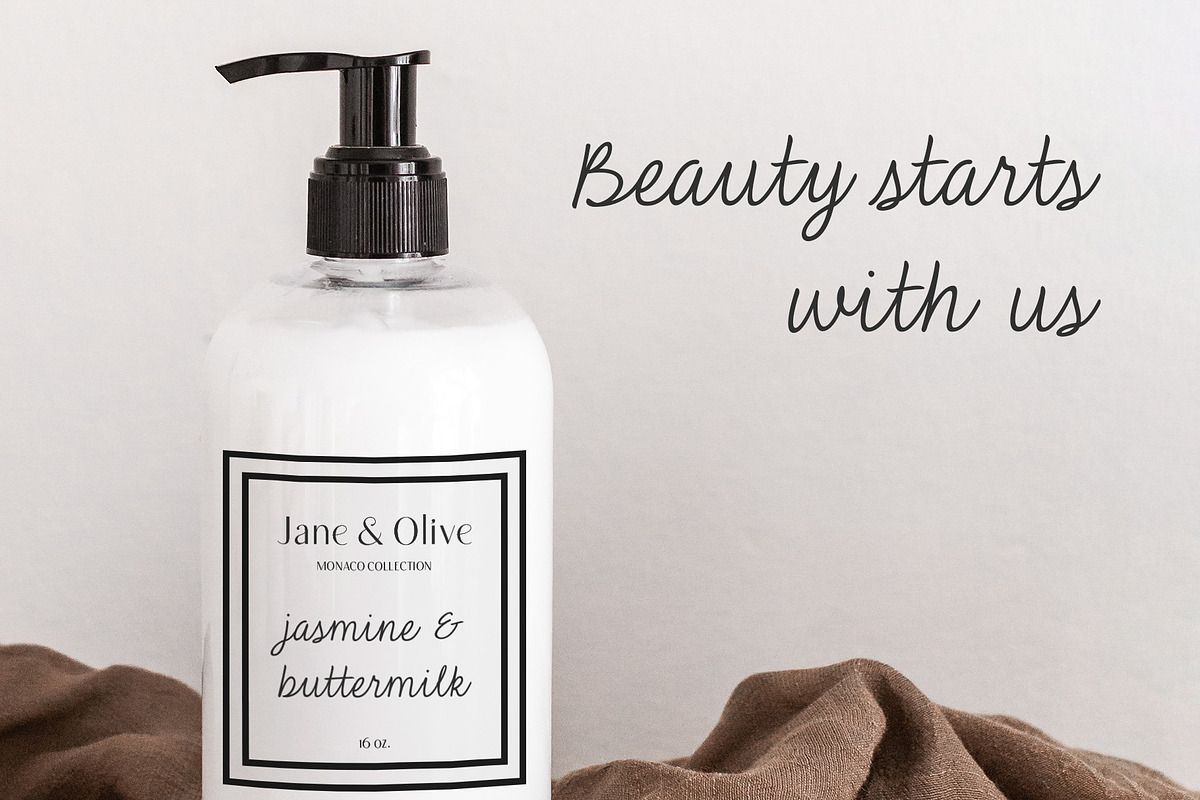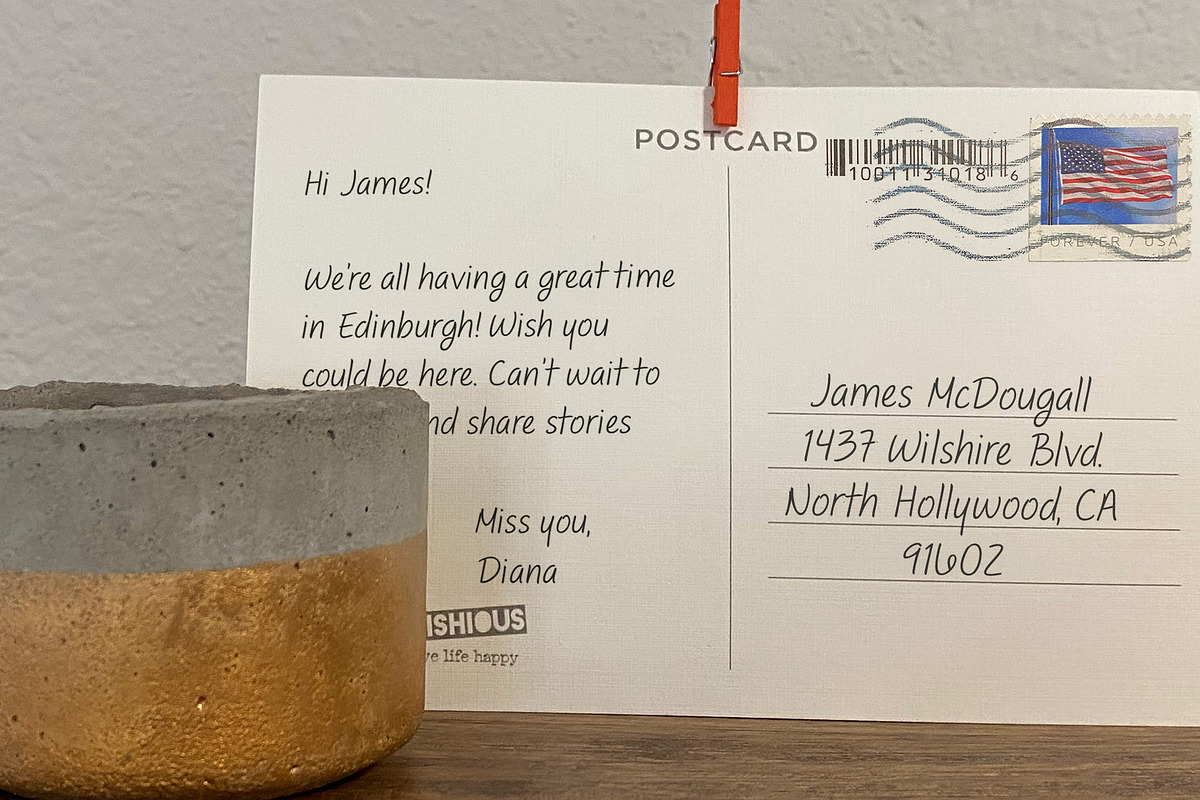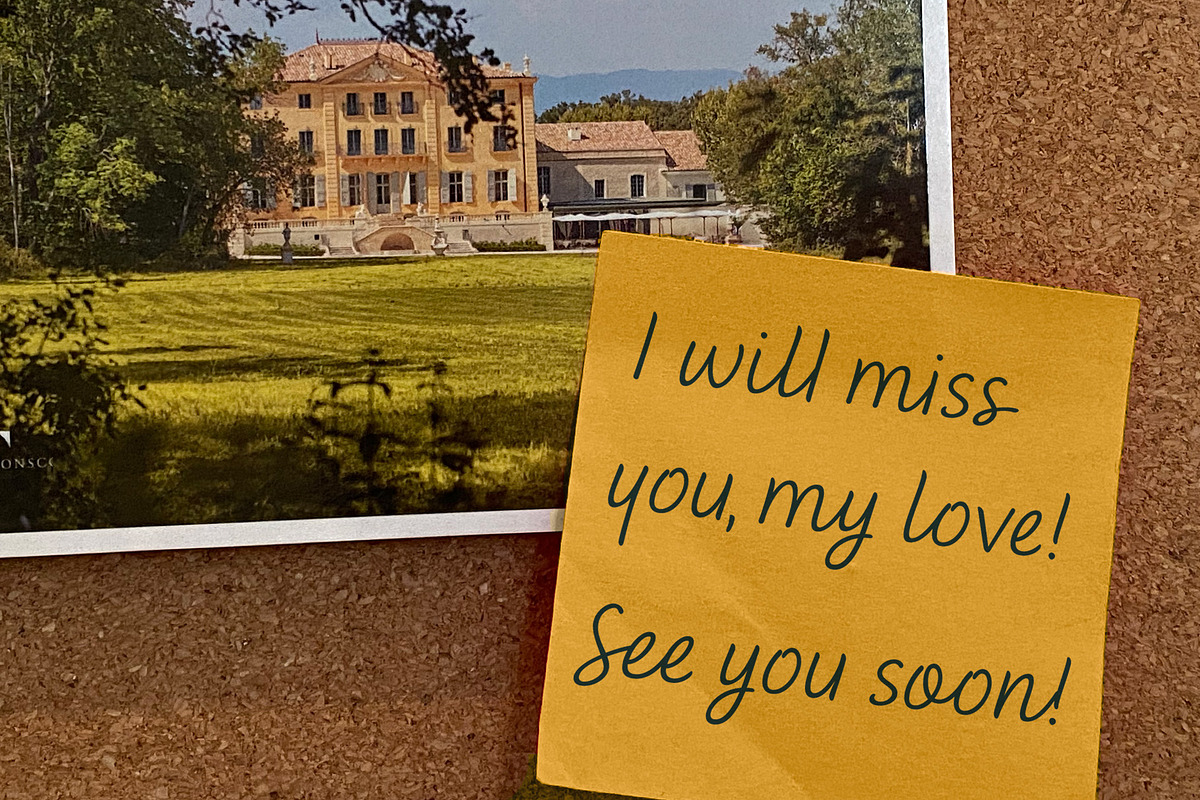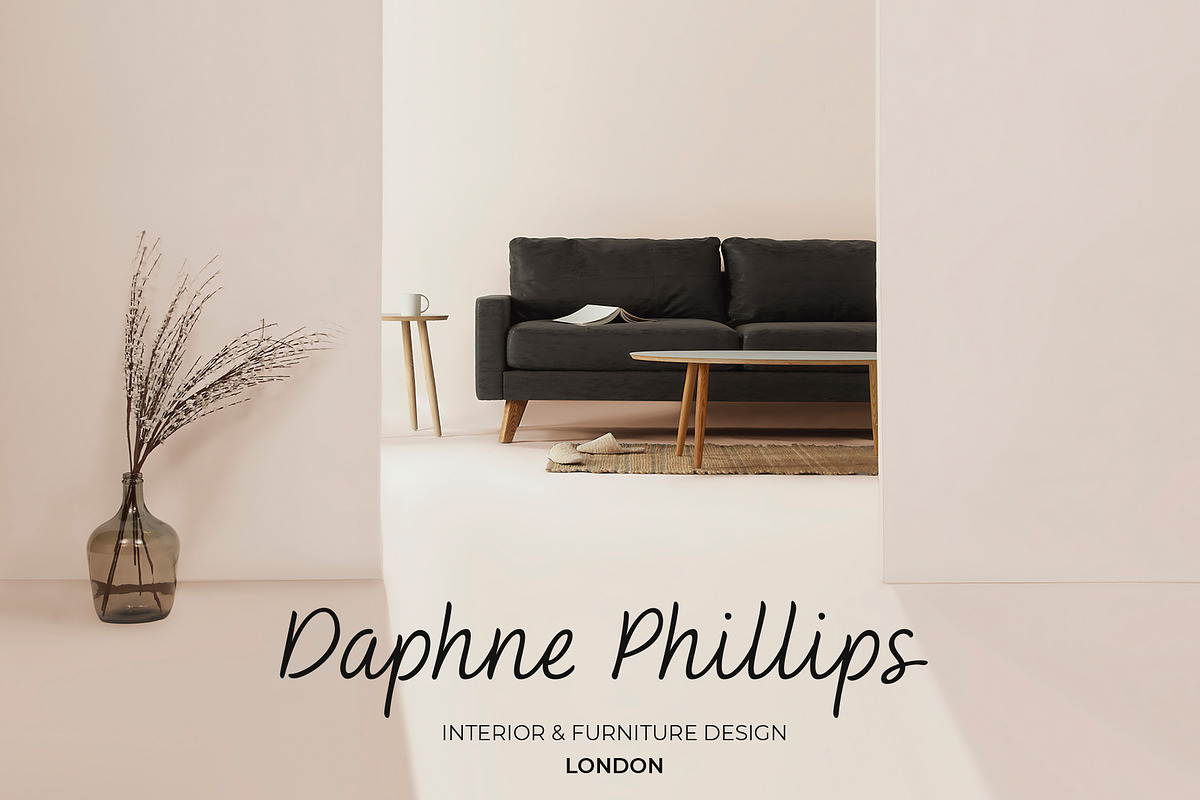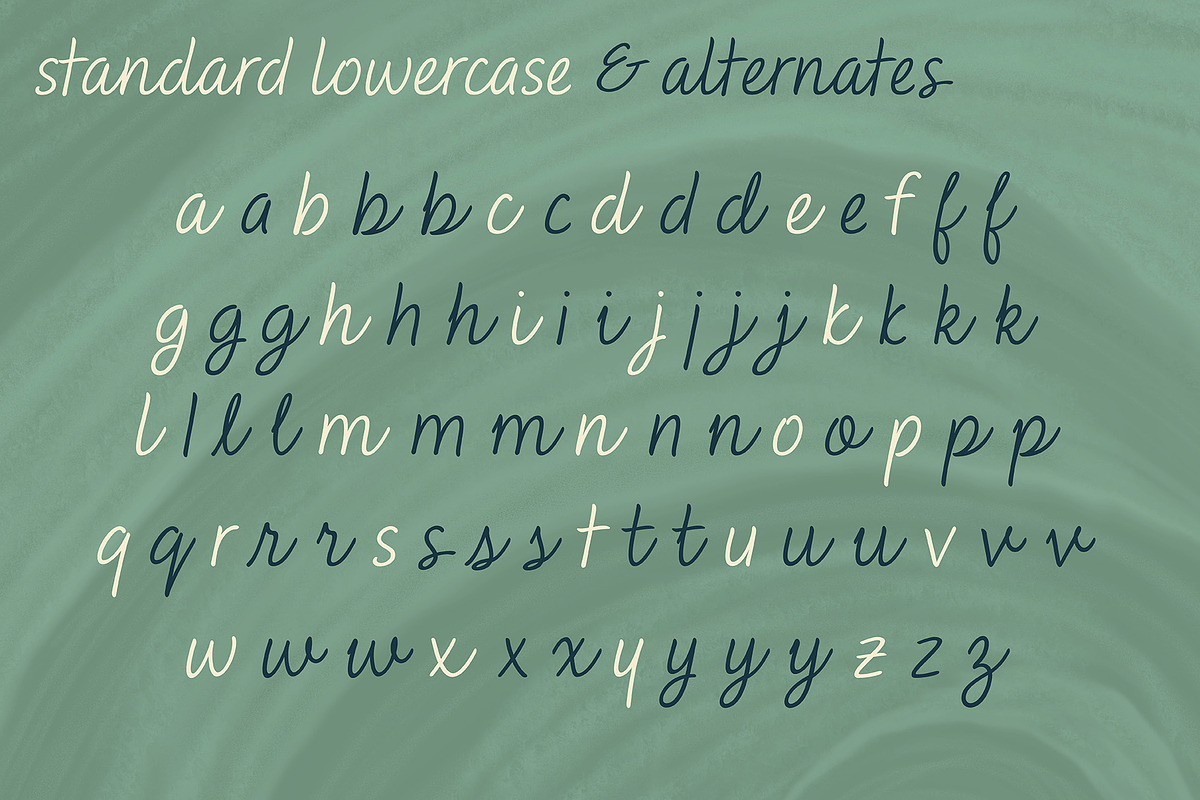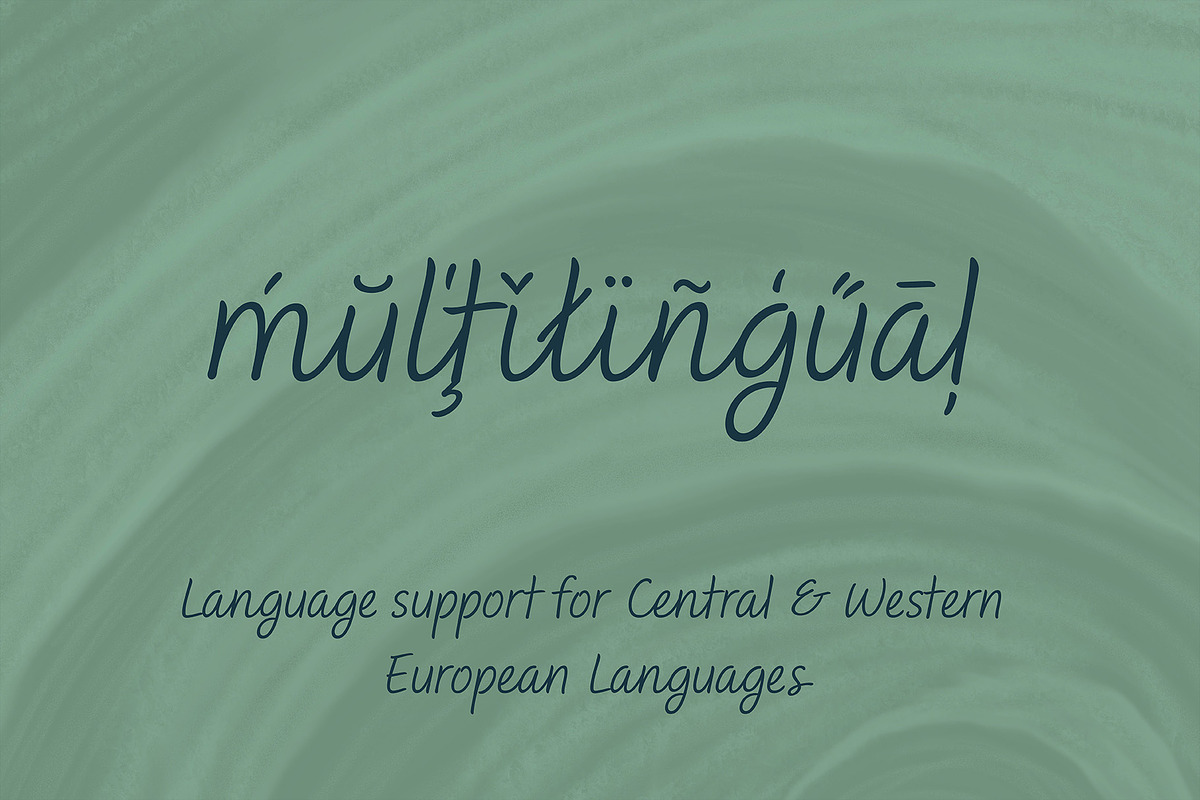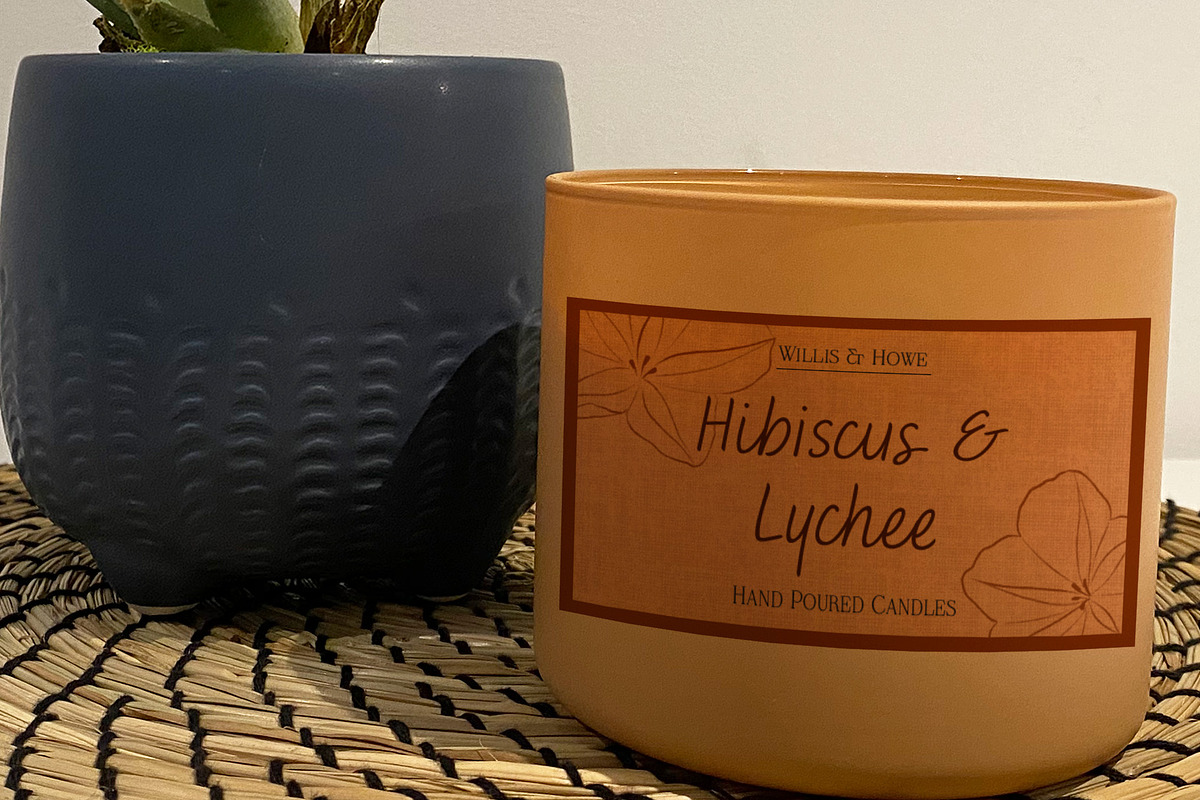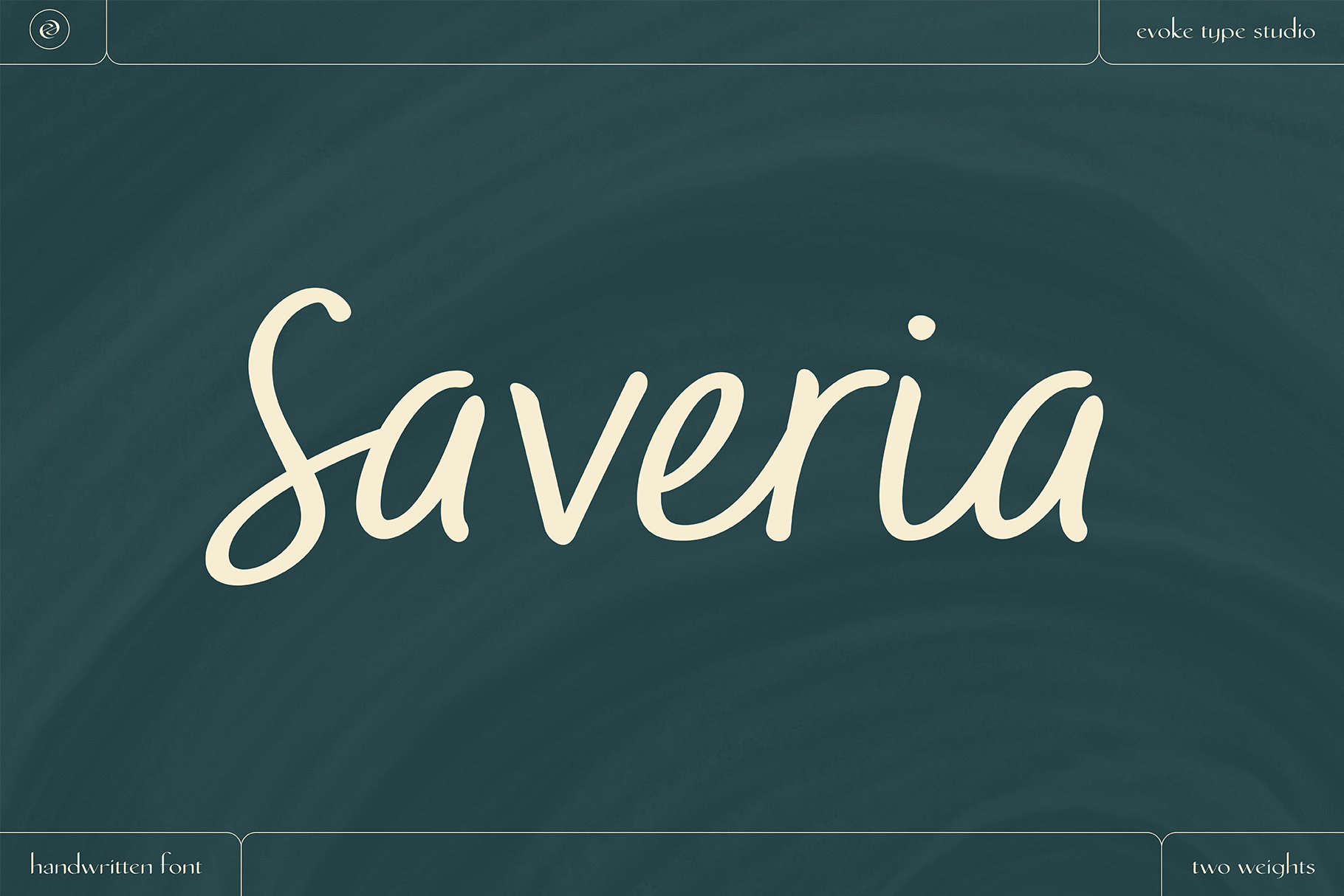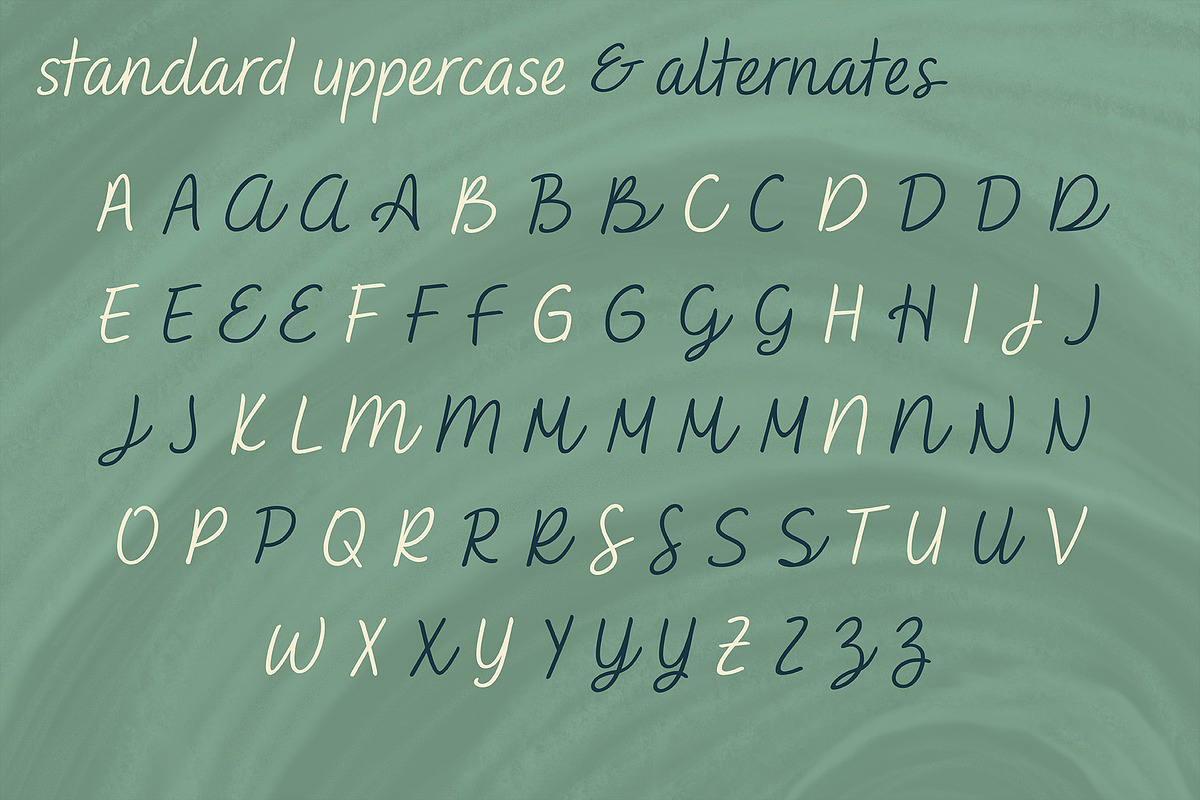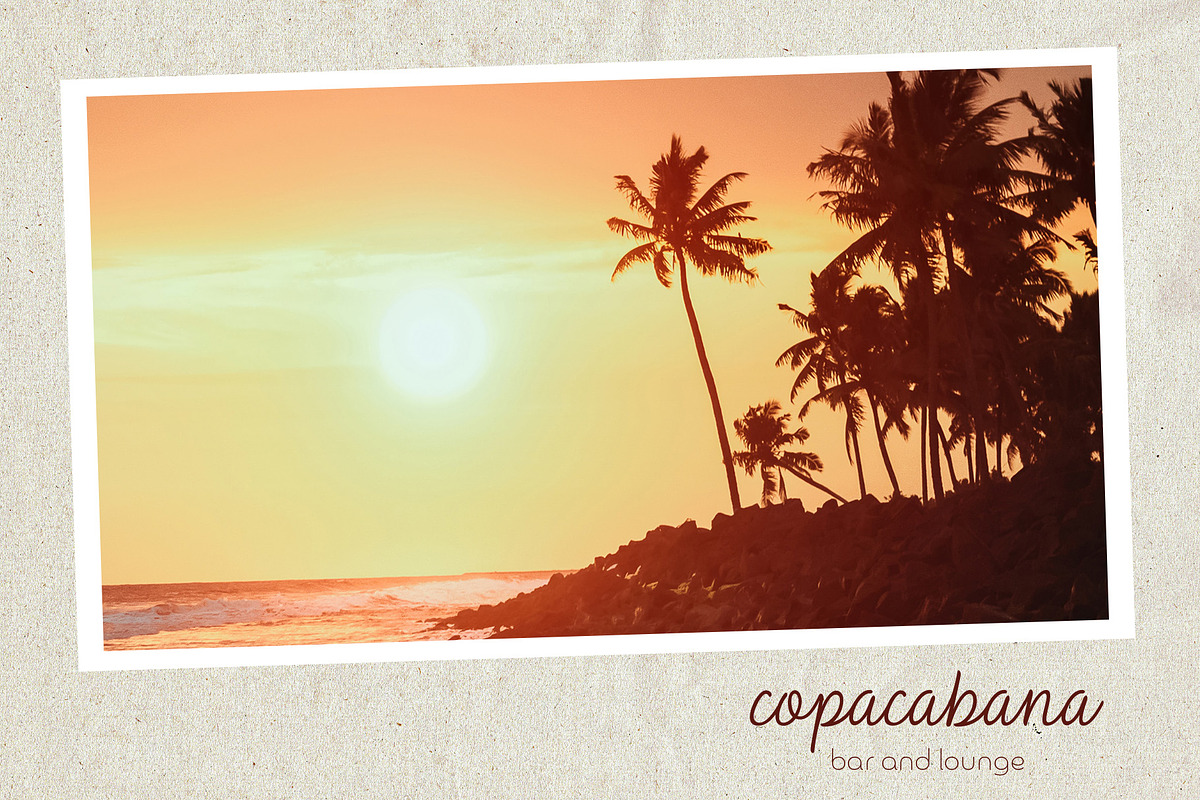
Saveria Handwritten Script Font
Saveria is a friendly handwritten font created with legibility in mind. This font was created to provide a warm and welcoming message for banners and social media posts without making your message too difficult to read. She’s the decorative script font’s more approachable cousin. The ascenders and descenders aren’t overly exaggerated so that your message stays more easily contained and focused. The contrast is minimal to maintain that ease of readability.
This font also offers two distinctly different stylistic sets, one that focuses on a lack of connections between characters while the other offers a cursive script font style. With these additional font styles, it’s like having three fonts in one with ultimate mix and matchability.
Saveria has language support for all Central and Western European languages, and includes accented characters for each stylistic set. She is also PUA encoded so that Canva and Cricut users can access its full range of characters.
Available in two weights (regular and bold) and with 1216 glyphs, Saveria offers a full range of customizability for your designs.